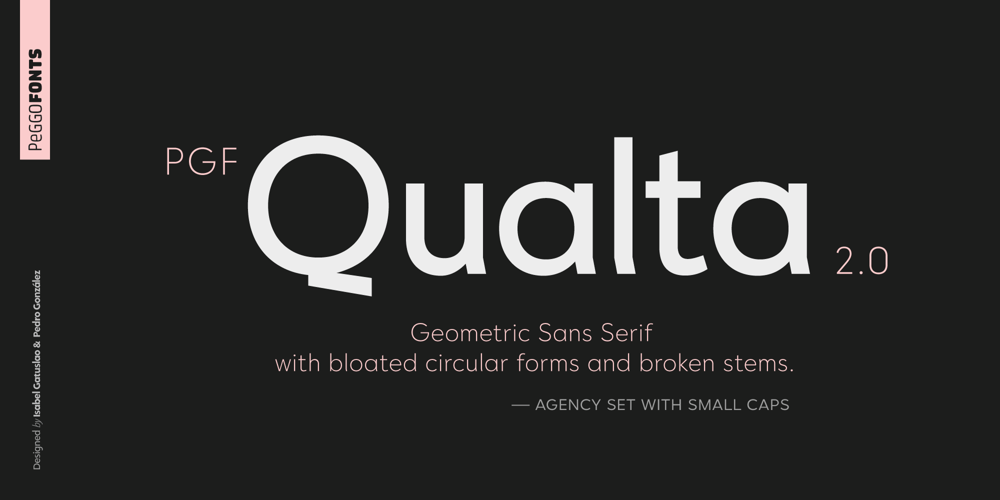
PGF Qualta Font Family was designed by Pedro Gonzalez Jorquera, PeGGO Fonts, Isabel Gatuslao and published by PeGGO Fonts. PGF Qualta contains 16 styles and family package options. “Qualta” was initially designed in 2017 as a submission for a type design assignment while at typography school, originally launched under Alt-A Foundry, “PGF Qualta” was developed specially for Publishing Agency under the supervision of Peggo Fonts Foundry, now with a complete Small Caps set, classic and old style numeric figures, lining and tabular forms, scientific and fractional notation set, arrows set, light parenthesis set.Set on producing a geometric sans, it started with the circular form drawn from a 50s television screen. The bloated shape gave an illusion of protrusion and so much open space to the rounded letters. A broken stem was then added to the lowercase to provide a notch that allowed the typeface legibility in smaller sizes.The typeface was then developed into eight cuts with their corresponding italics. The lower case g includes a variation with a transitional link derived from the upper case Q’s tangent tail. Qualta’s original concept was designed by Isabel Gatuslao and was developed by Pedro Gonzalez.